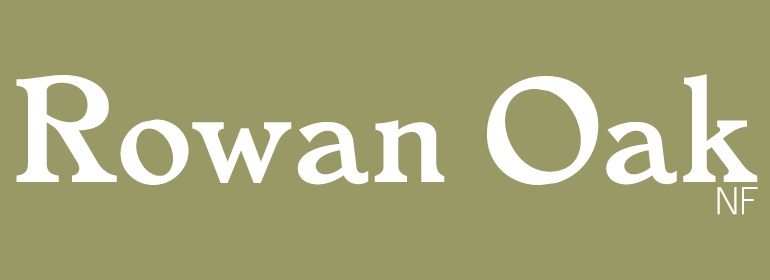
Rowan Oak NF Font
This “very elegant and British alphabet” was originally released in the 1920s as "Richmond Oldstyle" by the Blackfriars Type Foundry of London. Touted as highly artistic and graceful, it is exceptionally “at home” wherever style and charm are called for. Both versions of this font contain the complete Unicode Latin A character complement, with support for the Afrikaans, Albanian, Basque, Bosnian, Breton, Catalan, Croatian, Czech, Danish, Dutch, English, Esperanto, Estonian, Faroese, Fijian, Finnish, Flemish, French, Frisian, German, Greenlandic, Hawaiian, Hungarian, Icelandic, Indonesian, Irish, Italian, Latin, Latvian, Lithuanian, Malay, Maltese, Maori, Moldavan, Norwegian, Polish, Portuguese, Provençal, Rhaeto-Romanic, Romanian, Romany, Sámi, Samoan, Scottish Gaelic, Serbian, Slovak, Slovenian, Spanish, Swahili, Swedish, Tagalog, Turkish and Welsh languages, as well as discretionary ligatures and extended fractions.